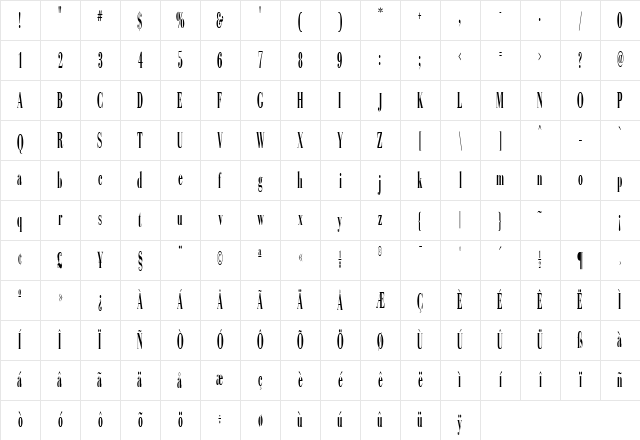
Sinema Display SSi Extra Condensed
Style: Extra Condensed
Design Context for Sinema Display SSi
Sinema Display SSi is built around its visual character rather than neutral utility - its distinctive forms are designed to make an impression at display sizes.
Font Pairing: Pair with a clean neutral sans-serif for body copy to let Sinema Display SSi's character lead without overwhelming the composition.
Pro Tip: Use Sinema Display SSi exclusively at display sizes - it was designed to be seen, not read at length. Let a neutral companion handle body copy.